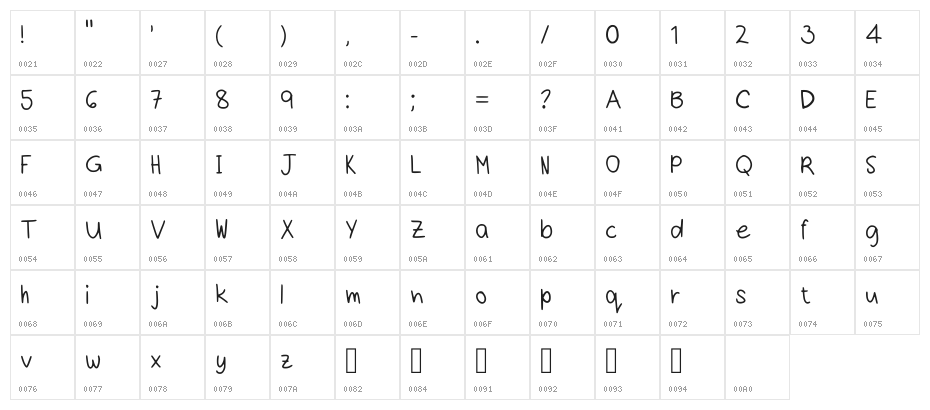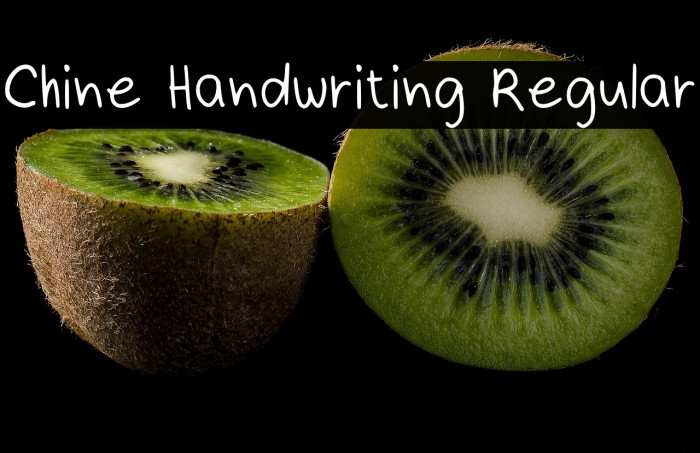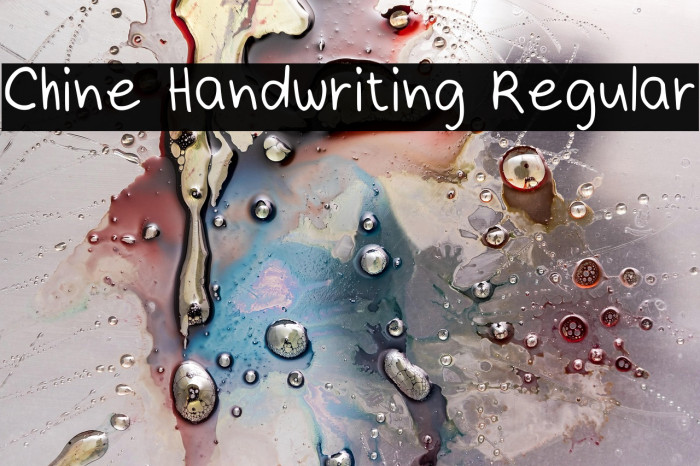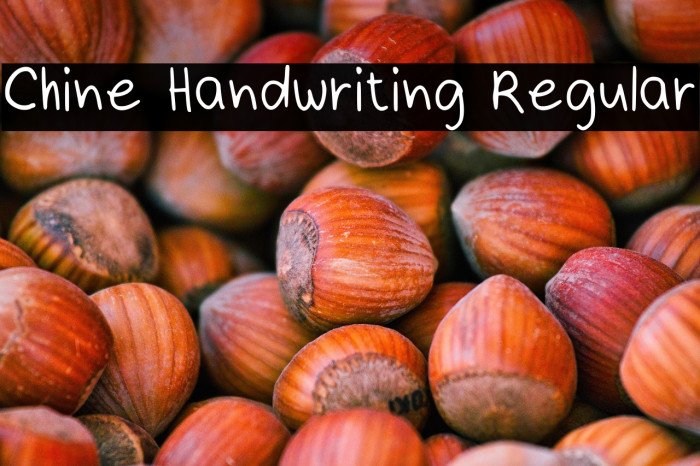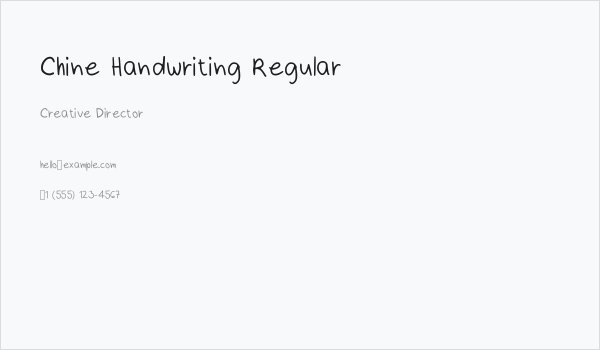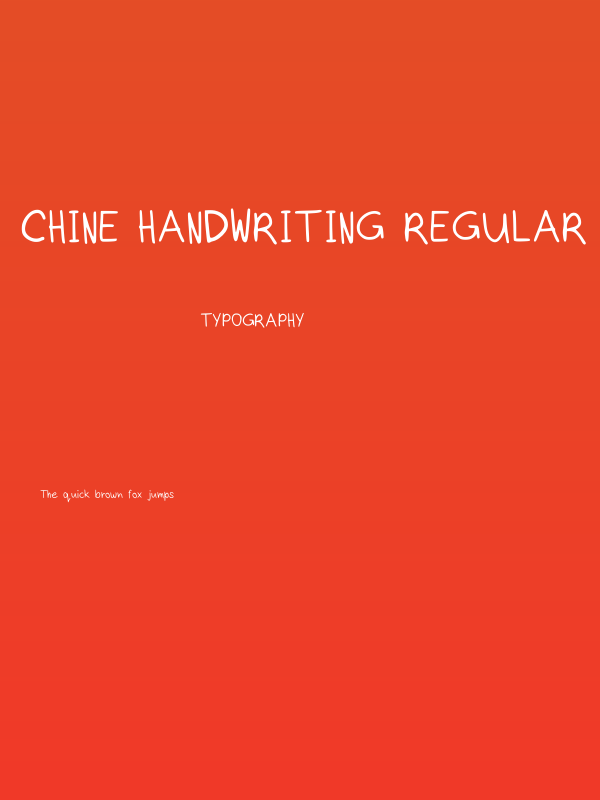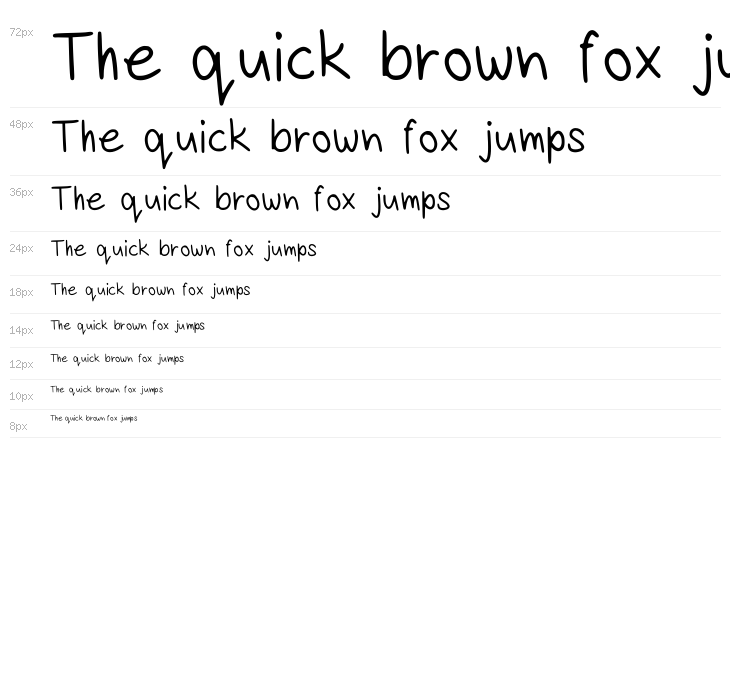
Chine Handwriting Regular Font
Chine Handwriting Regular Description
A playful, casual handwritten font with a natural flow and irregular character shapes.
| Use Case | Informal text, Personal projects |
| Proposed Projects | Greeting cards, personal notes, informal branding. |